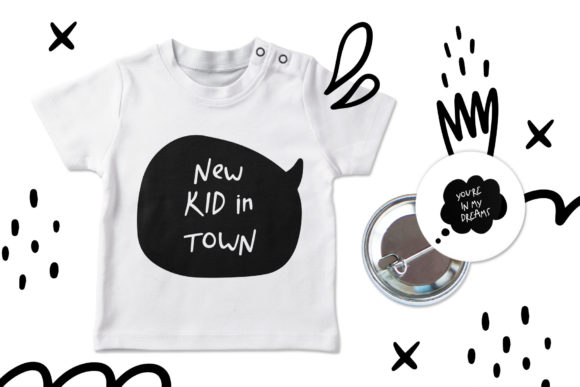
Jumper Font
db-ku.com - Script & Handwritten -- Jumper is an equally playful and authentic handwritten font with a bouncy feel. Get inspired by its contemporary charm!